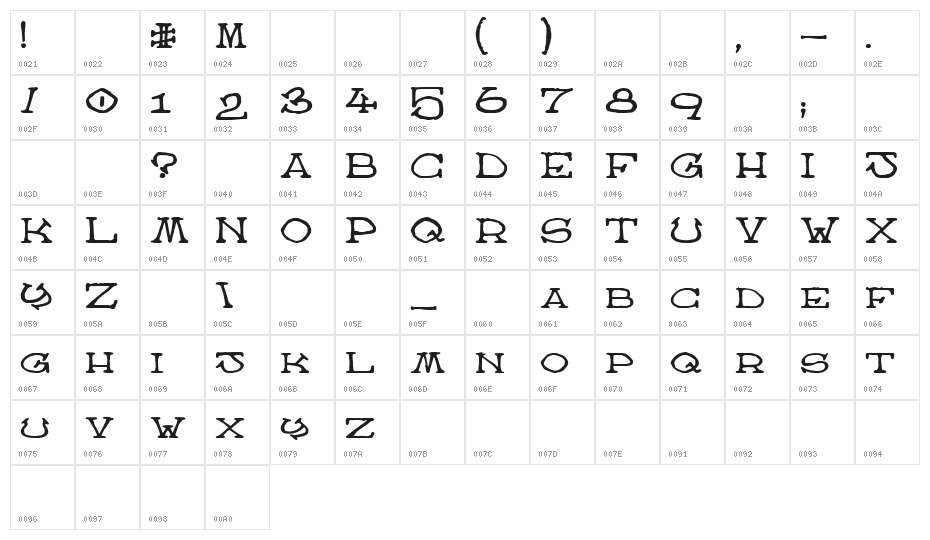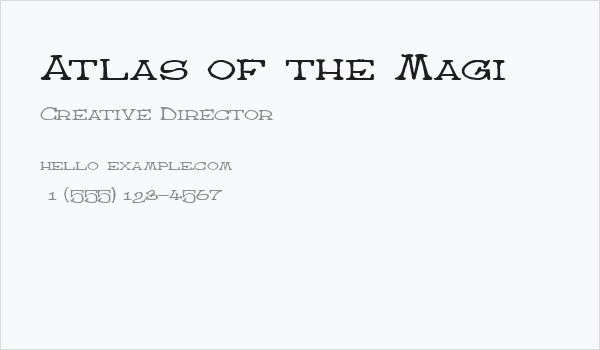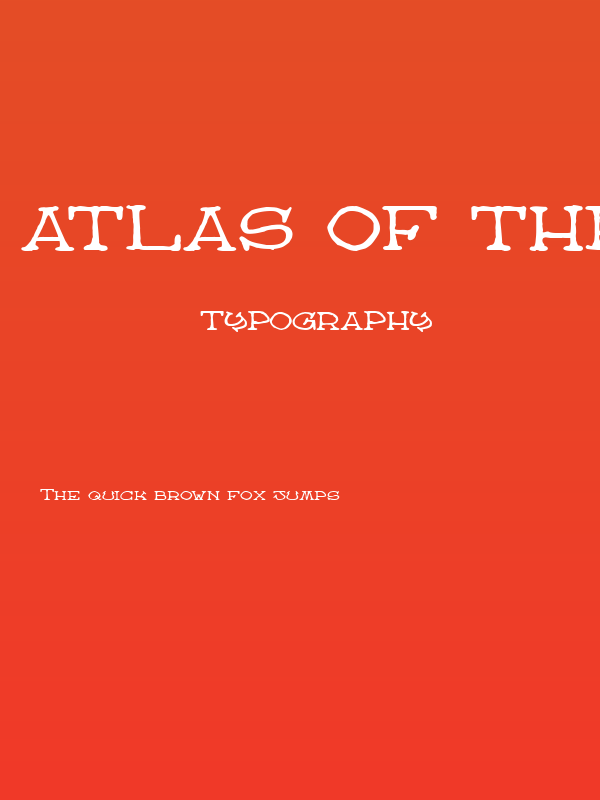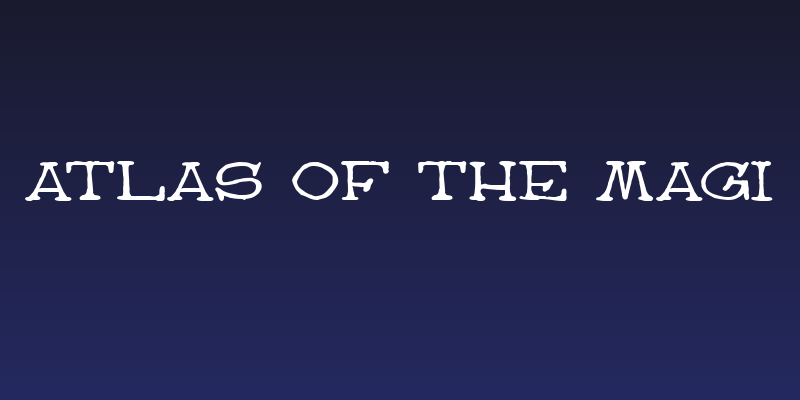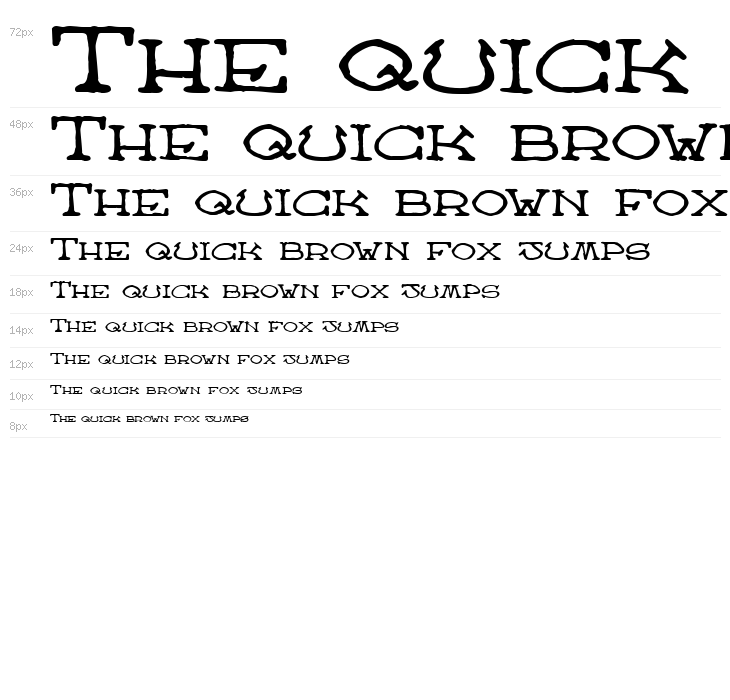
Atlas of the Magi Font
Atlas of the Magi Description
This font features a unique, hand-drawn style with a slightly rough and uneven texture, giving it a whimsical and magical appearance. The characters are bold and have a distinct, playful quality, reminiscent of ancient scripts or mystical texts. The uppercase and lowercase letters maintain a consistent style, with exaggerated serifs and varying line thickness that add to its charm. The numbers and special characters follow the same design principles, ensuring a cohesive look across all glyphs. This font's artistic flair makes it suitable for creative and fantasy-themed projects.
| Proposed Projects | Ideal for fantasy book covers, magical event invitations, themed posters, and creative branding. |